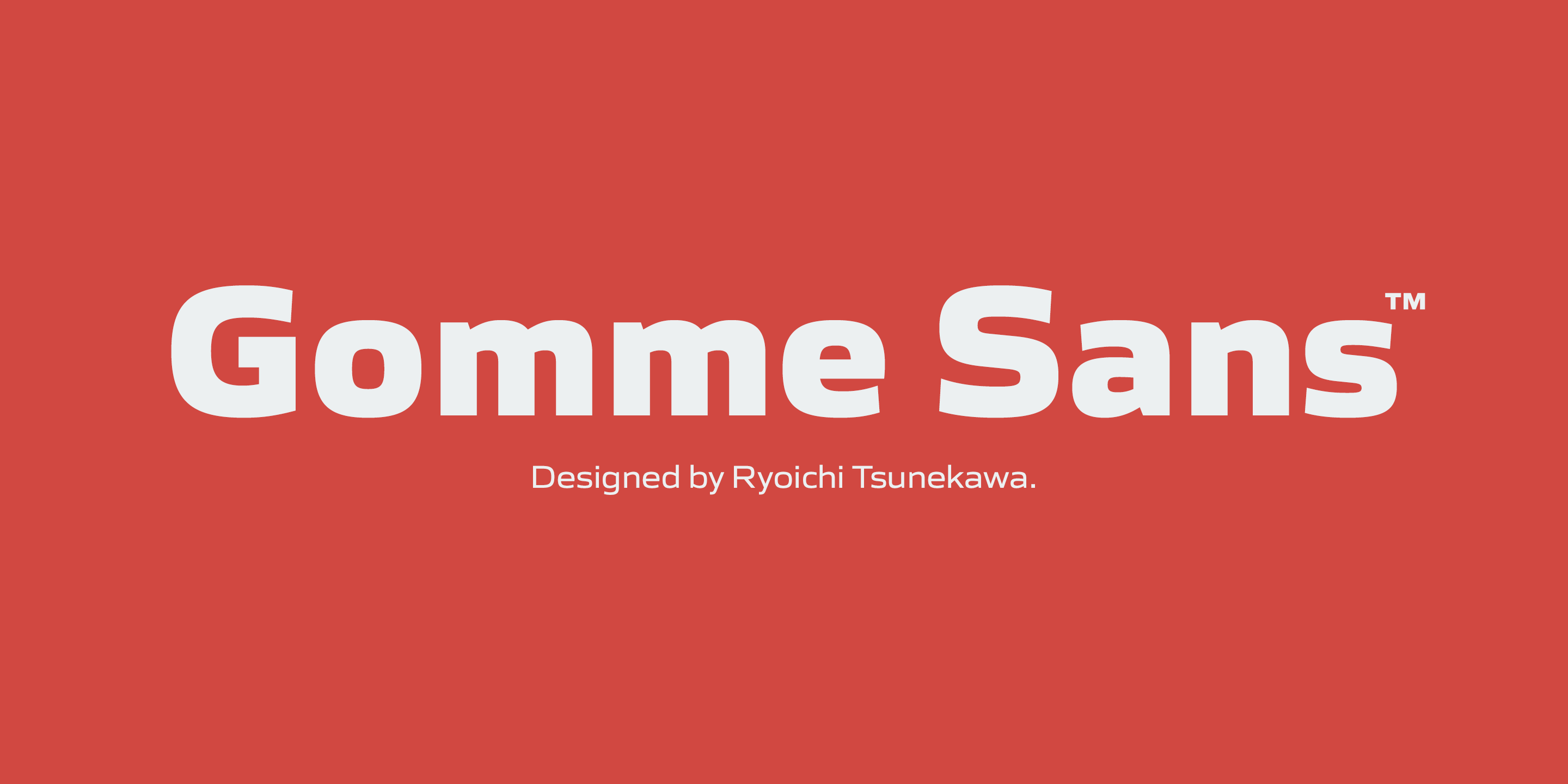
Gomme Sans Font Free Download is a clean and contemporary sans-serif typeface designed for maximum clarity and versatility. Its smooth lines, geometric shapes, and balanced proportions make it an excellent choice for branding, editorial design, user interfaces, packaging, and corporate communication that demands a modern and professional appearance.
The font’s simple yet refined structure ensures outstanding readability across various sizes and media formats. Gomme Sans is highly adaptable, offering a sleek and polished look that fits seamlessly into both creative and business-focused projects in both print and digital applications.
Gomme Sans is a strong addition to any designer’s toolkit, providing a reliable and stylish solution for projects that prioritize clarity, elegance, and contemporary aesthetics.